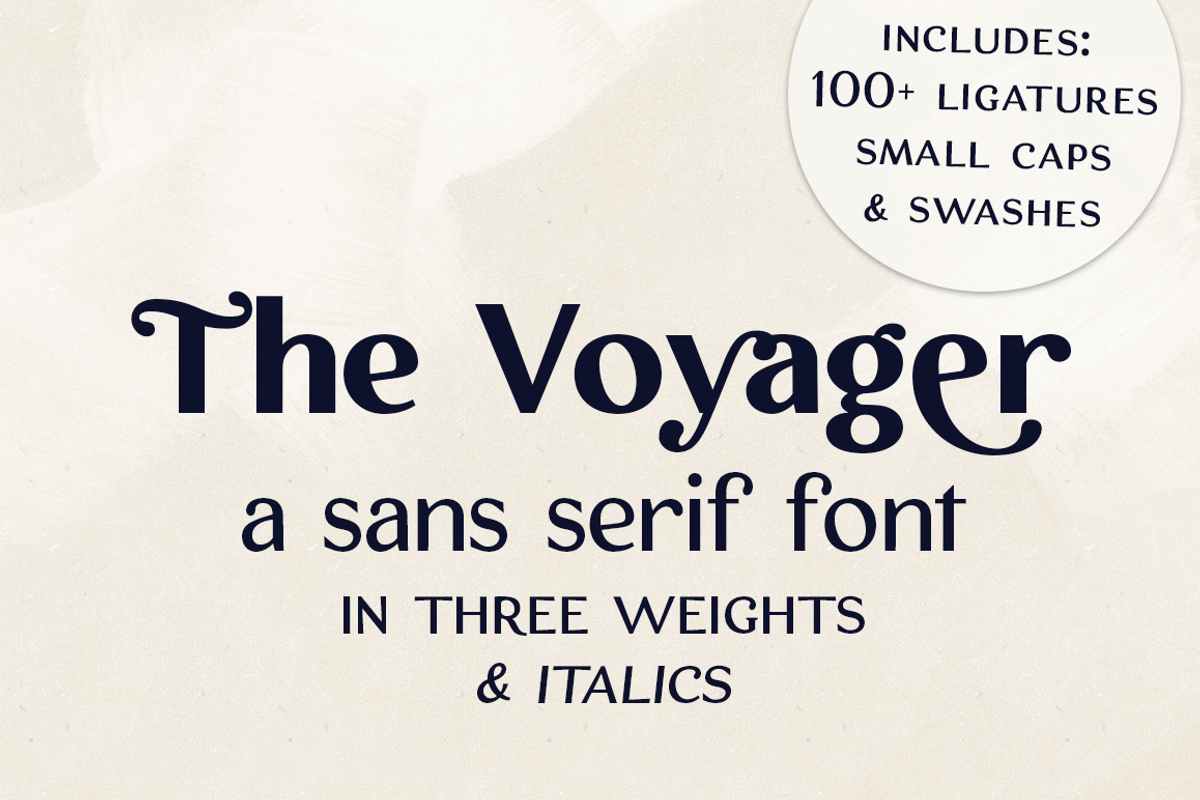
The Voyager Font Free Download is a captivating ligature font designed to bring a futuristic and adventurous vibe to your designs. With its smooth curves and unique letter connections, this font is perfect for space-themed projects, sci-fi branding, logo design, editorial layouts, and any creative endeavor that calls for a sleek, high-tech feel.
Its stylish ligatures and modern aesthetic make it stand out in digital and print formats alike. Whether you’re working on a film poster, website, or promotional materials, The Voyager brings a bold, cosmic presence to every word. The Voyager Font Free Download lets you explore its unique design in personal projects before purchasing a commercial license.
Take your designs to new heights with The Voyager — the ligature font that travels to the stars and beyond.